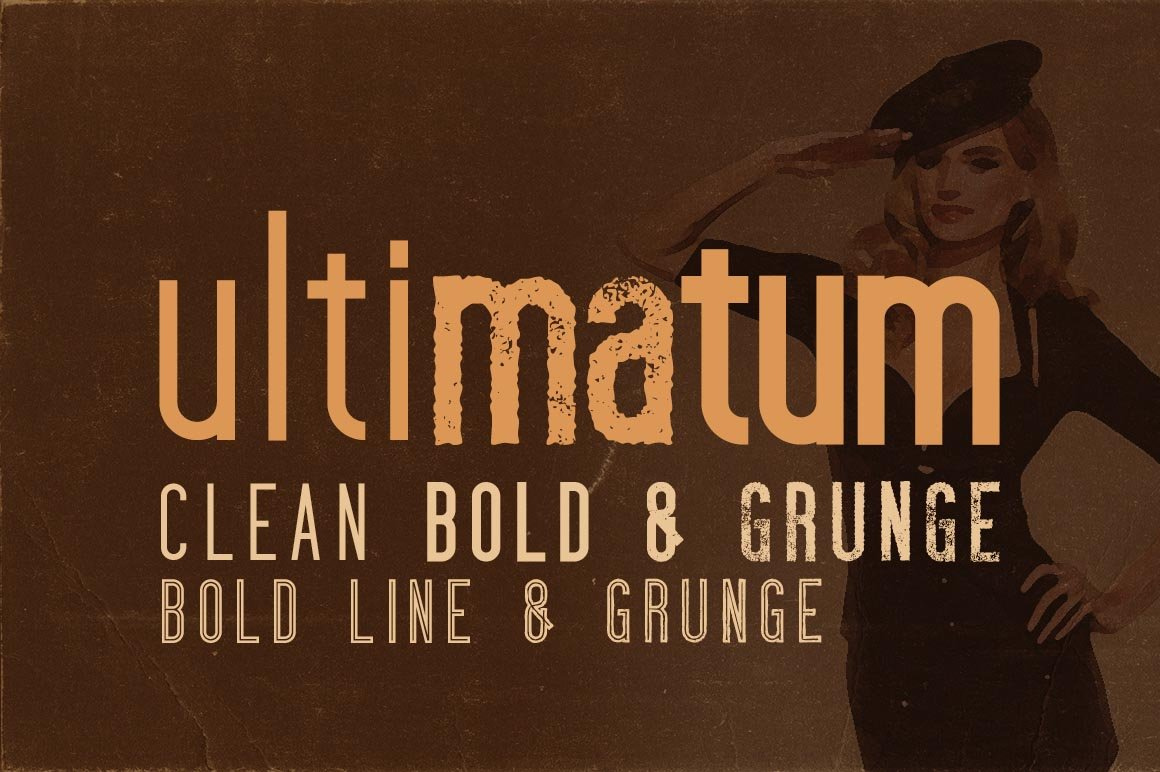
Ultimatum Font
Ultimatum Font is perfect for action movie titles, intense gaming branding, military-style logos, emergency service signage, high-stakes competition materials, deadline-driven campaigns, critical alert systems, powerful corporate communications, urgent public announcements, decisive leadership branding, final notice designs, and commanding storytelling applications.
Ultimatum Font is exciting because it embodies absolute authority and non-negotiable determination with bold, commanding letterforms that deliver messages with the force and finality of an ultimatum, perfectly capturing the decisive moment when words carry ultimate power and demand immediate action or response.
The Ultimatum Font family includes decisive variations: Regular, Bold, Heavy, Condensed, Extended, and Impact styles, providing designers with a complete authority typography system to create commanding compositions that communicate urgency, finality, and the uncompromising power of decisive communication.
Make your final statement with Ultimatum Font Free Download. This powerfully commanding typeface brings the absolute authority and decisive force of ultimatum communication to contemporary design projects. Whether you're creating high-impact brand identities, designing urgent campaign materials, or developing crisis communication graphics, Ultimatum Font delivers unmatched authority and commanding presence that demands attention.
The font's aggressively crafted letterforms reflect the uncompromising strength and absolute finality that define ultimatum communication, with bold strokes and decisive proportions that suggest unwavering determination and the non-negotiable power of final demands and decisive action.
Ultimatum Font excels in creating memorable brand experiences for businesses requiring absolute authority, emergency services, and high-stakes decision-making sectors. Its commanding presence transforms ordinary communications into powerful declarations that resonate with audiences who understand the gravity of final decisions and decisive action.
Professional designers appreciate how Ultimatum Font maintains its authoritative character while providing exceptional functionality across diverse high-impact applications. The comprehensive style range ensures optimal performance from critical emergency notifications to massive crisis communication displays, maintaining consistent authority and decisive credibility.
This remarkable typeface brings instant command authority to high-stakes ventures and decision-focused organizations. From emergency response agencies to executive leadership brands, Ultimatum Font creates lasting impressions that communicate finality, authority, and the uncompromising power of decisive communication that brooks no compromise.